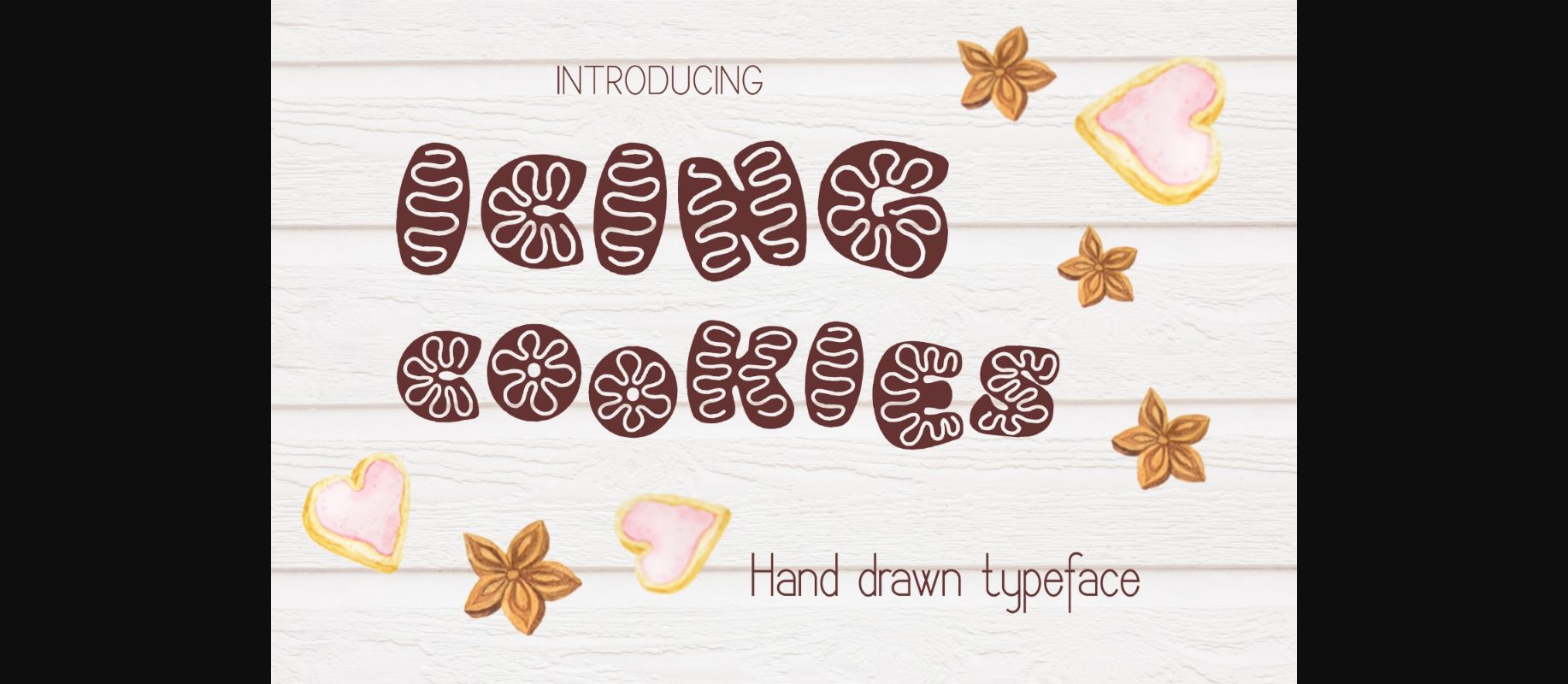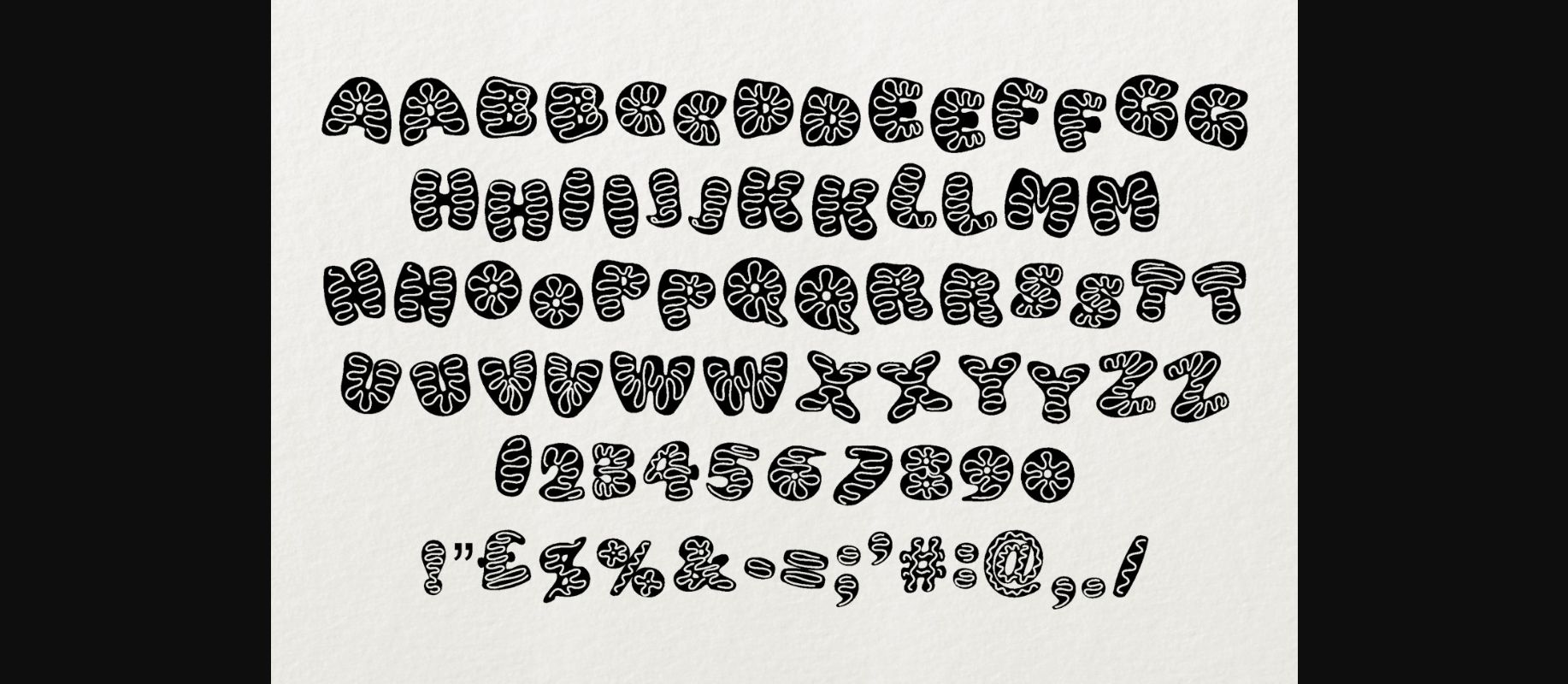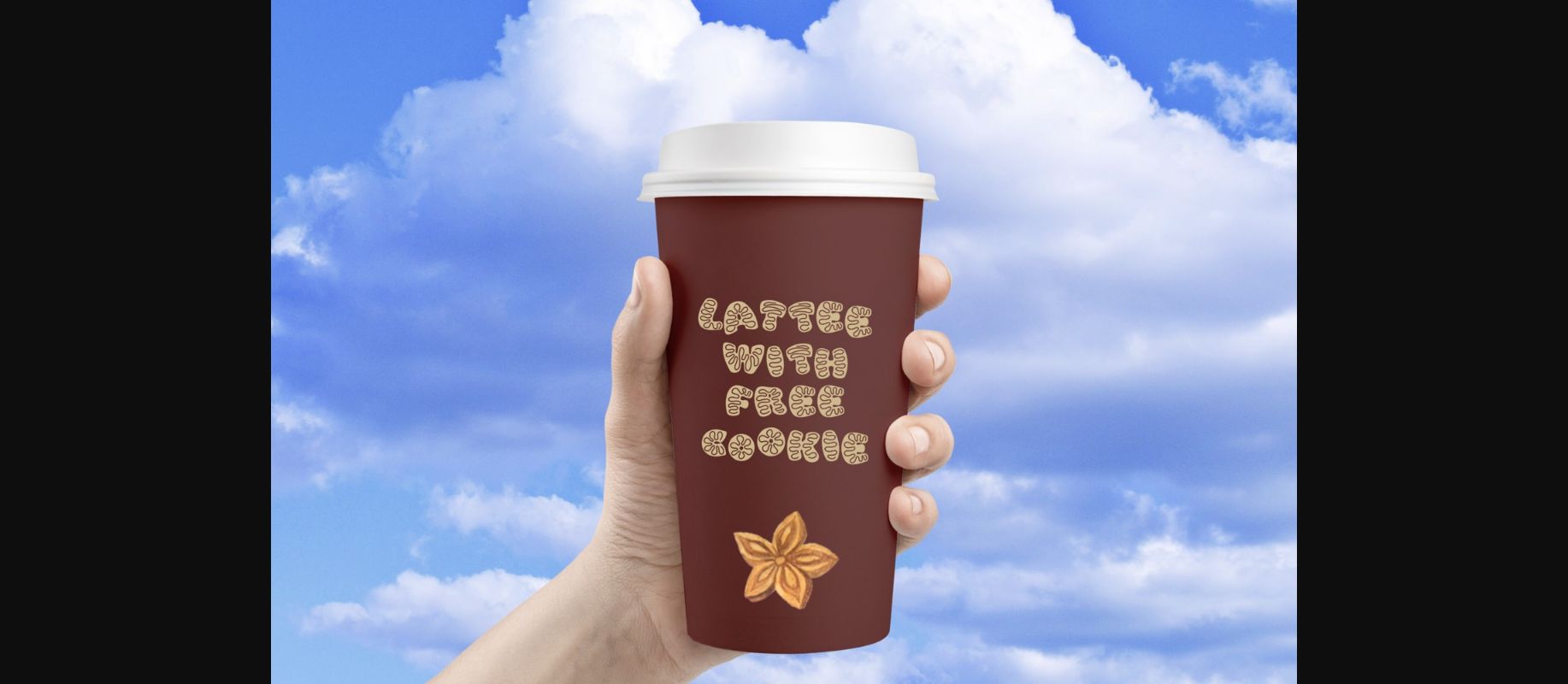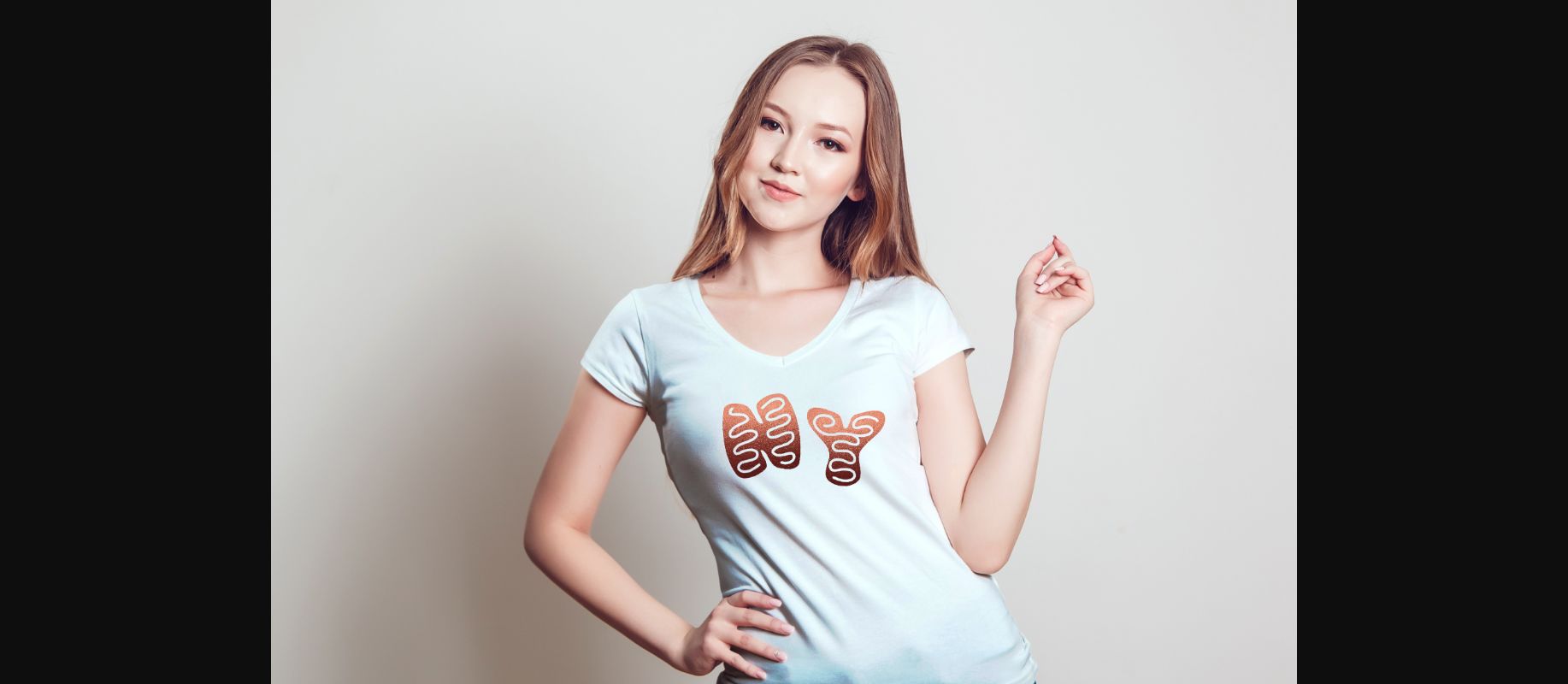
Icing Cookies Font
About Icing Cookies Font
Icing Cookies is great for titling, signage, logo, poster, flyers or t-shirts design, headlines, and more!